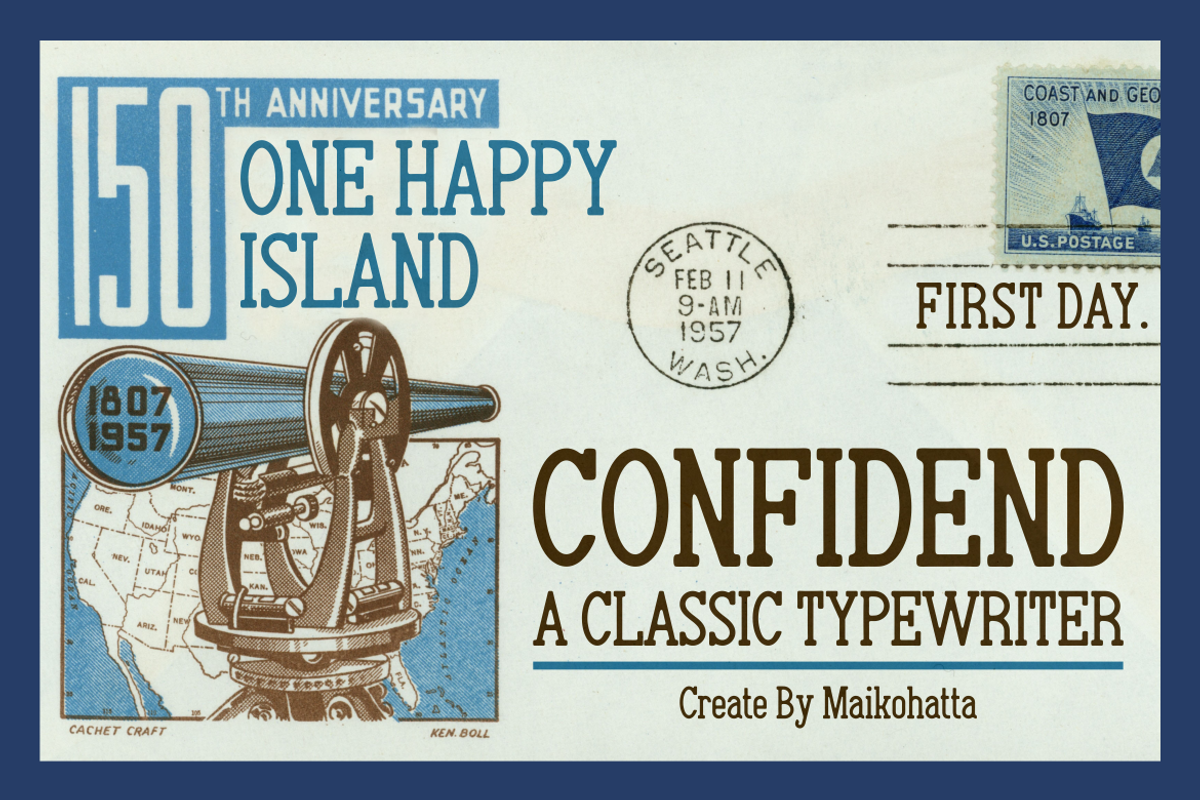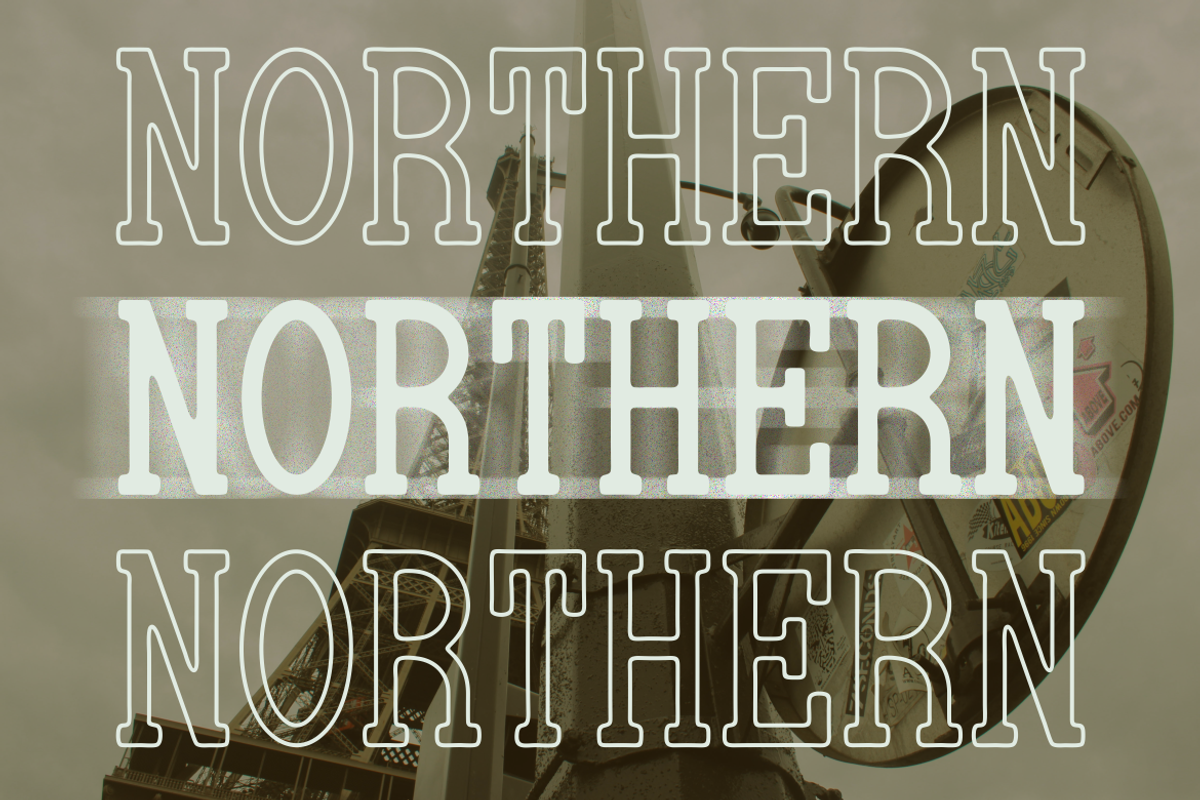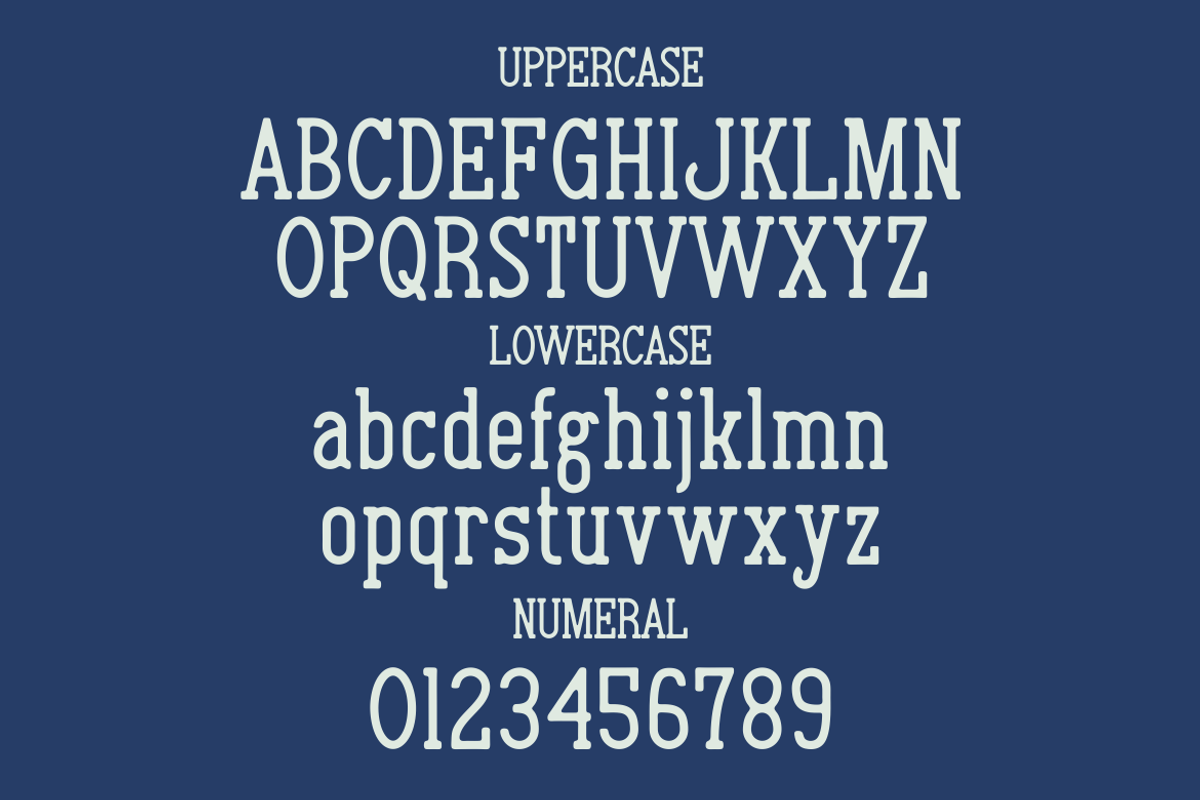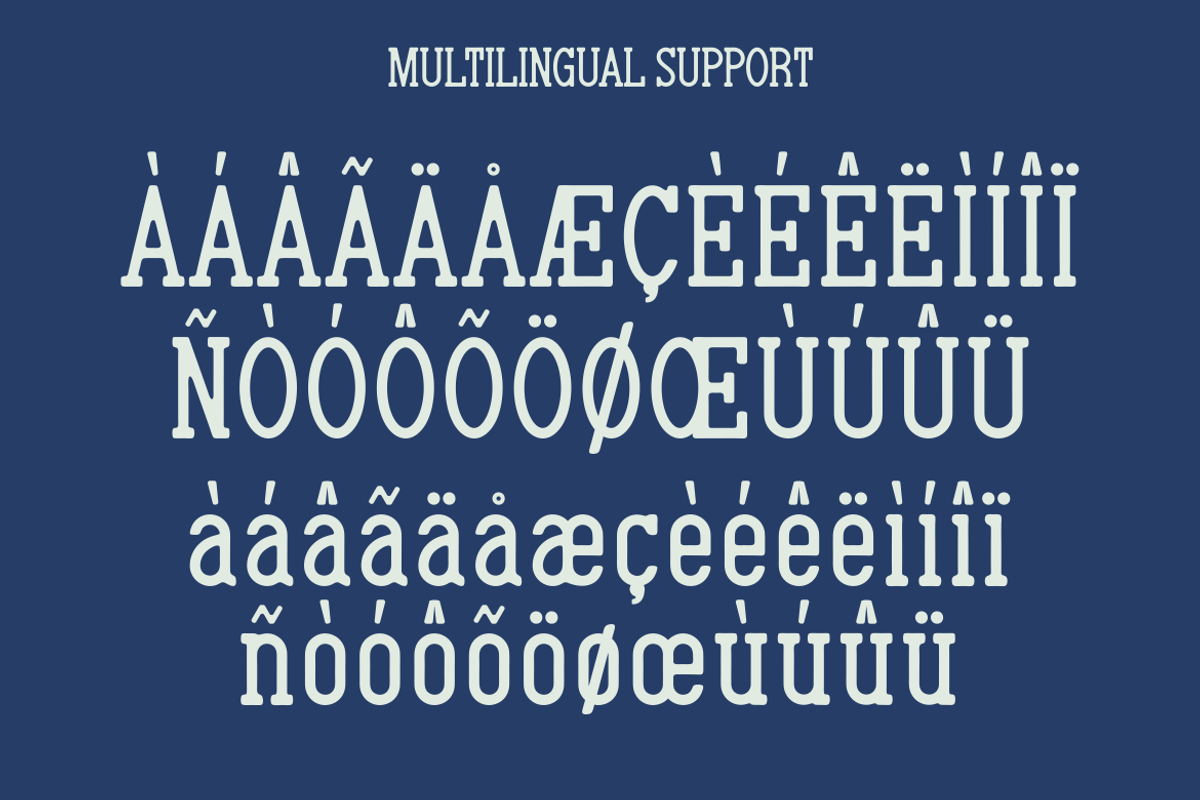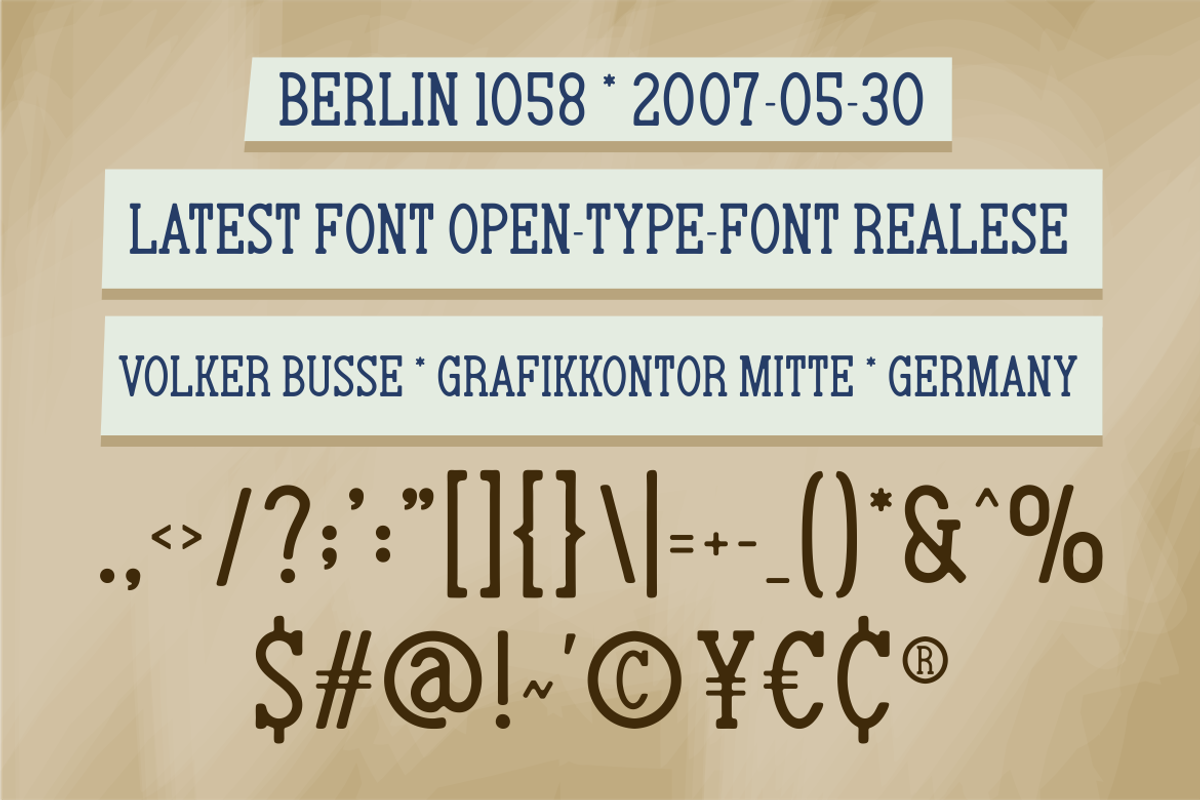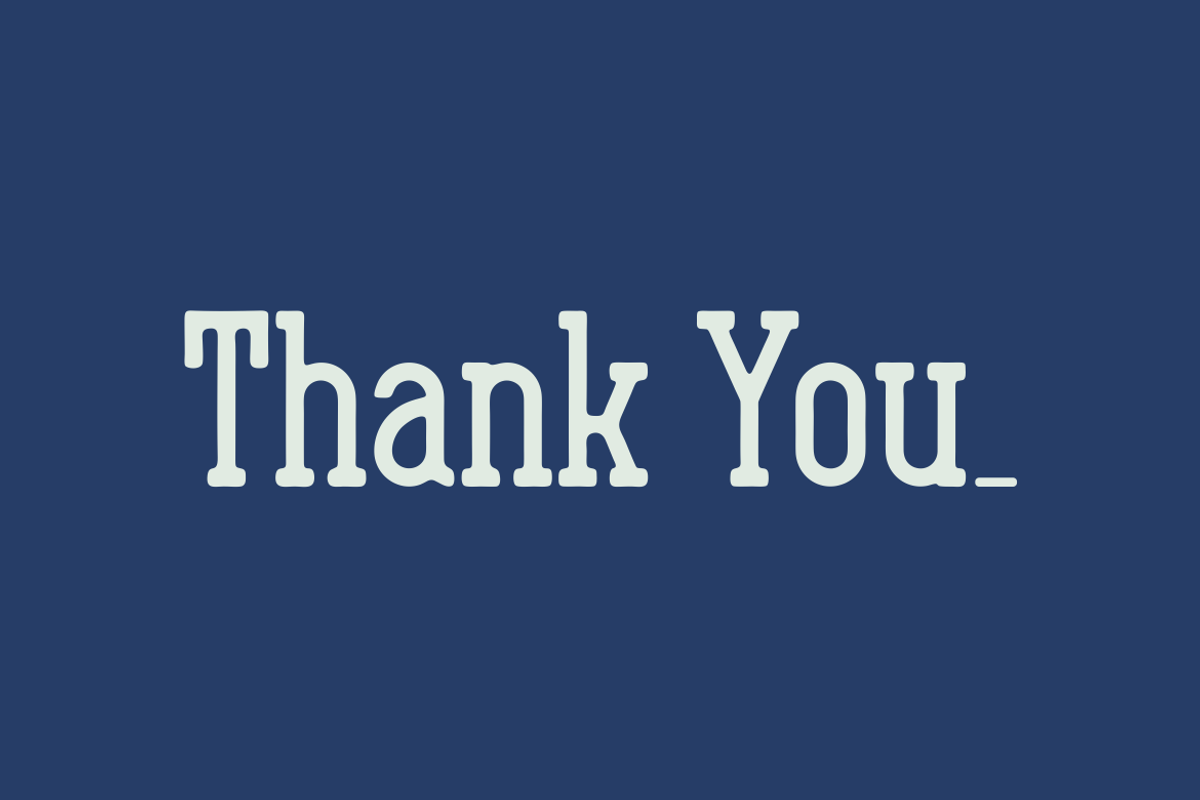
Confidend - Classic Typewriter
Confidend – Classic Typewriter Font Confidend is a timeless typewriter-inspired font that brings the charm of traditional typewritten letters into the digital age. Its bold yet classic design captures the nostalgic feel of vintage typewriters while maintaining excellent readability for modern use. Perfect for posters, book covers, postcards, packaging, branding, and editorial projects, Confidend adds a touch of authenticity and retro flair to any design. With its versatile style, this font is ideal for both bold headlines and body text, making it a must-have for designers who love vintage aesthetics and storytelling vibes.